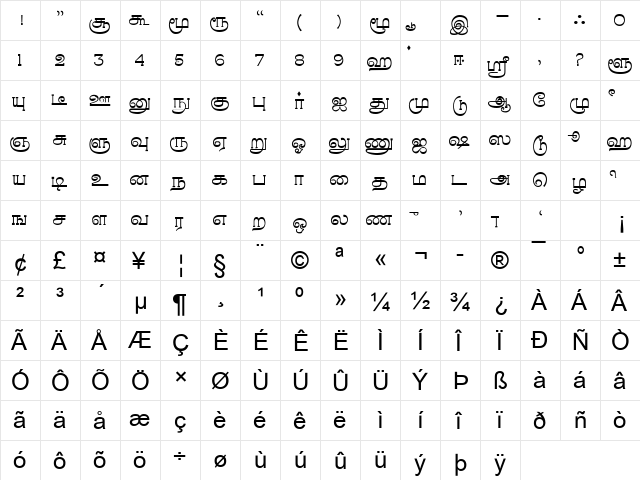
aTamilApple_thin normal Font Preview
aTamilApple_thin normal
aTamilApple_thin normal Font Details
Design Context for aTamilApple_thin Typeface
aTamilApple_thin offers clean, dependable letterforms without strong stylistic allegiance, making it a practical choice for designers who need flexibility. Its slender proportions lend an understated elegance to any composition.